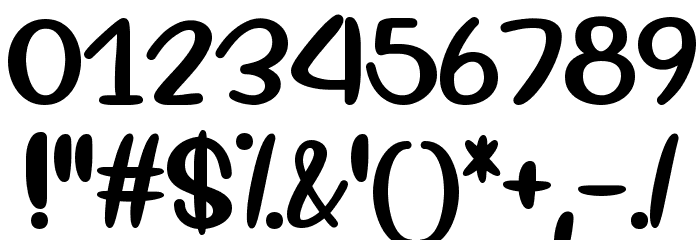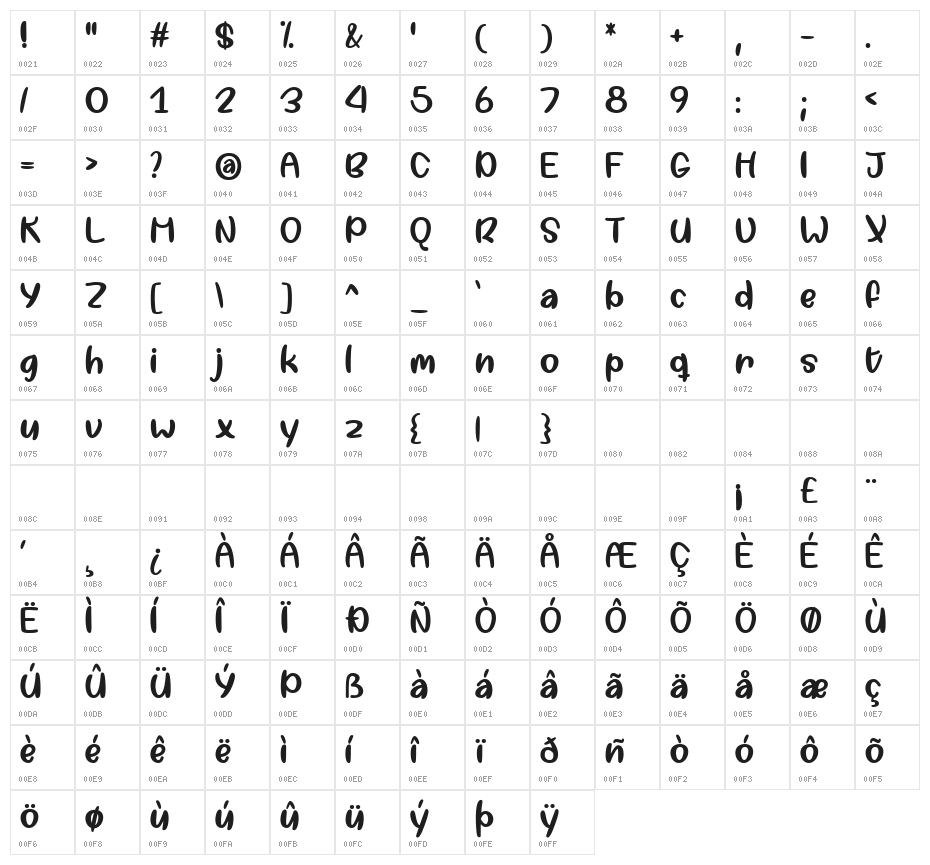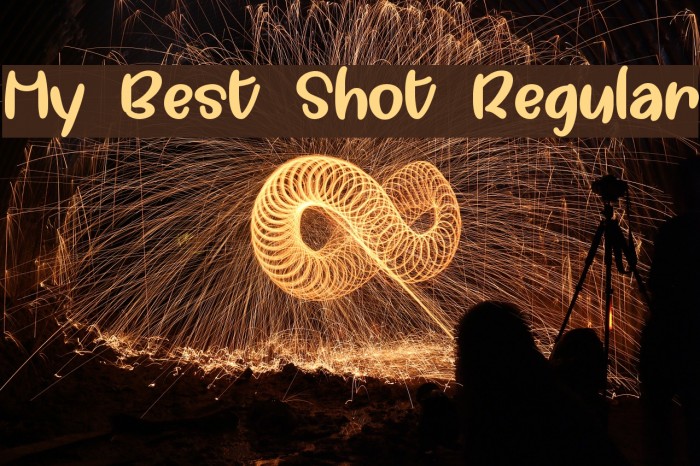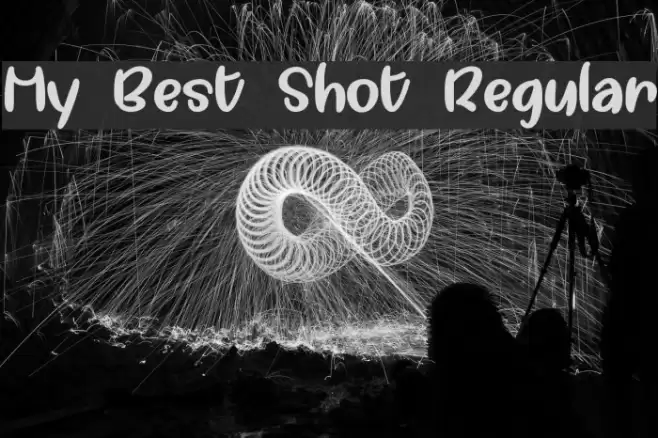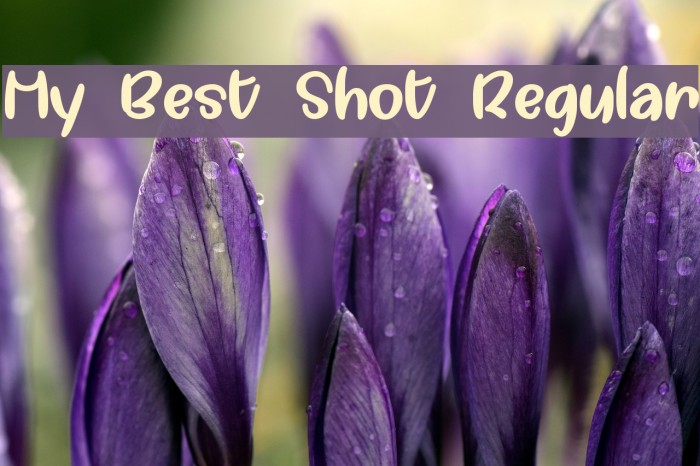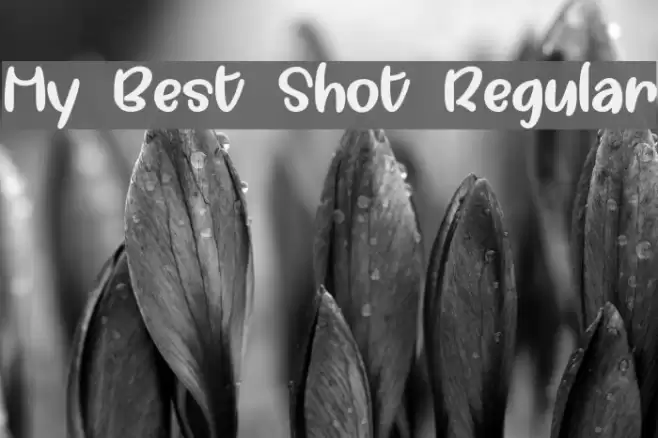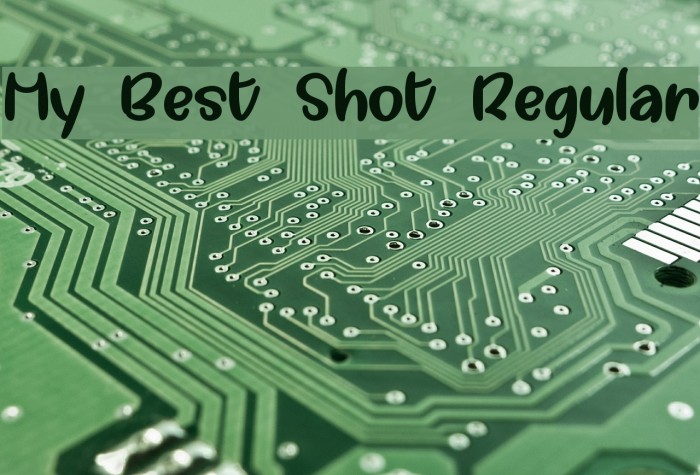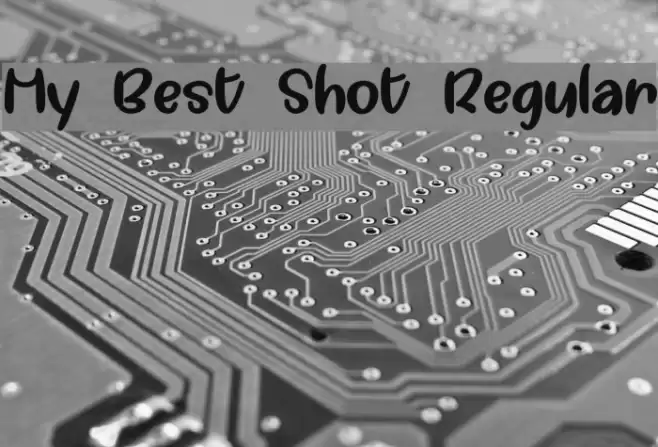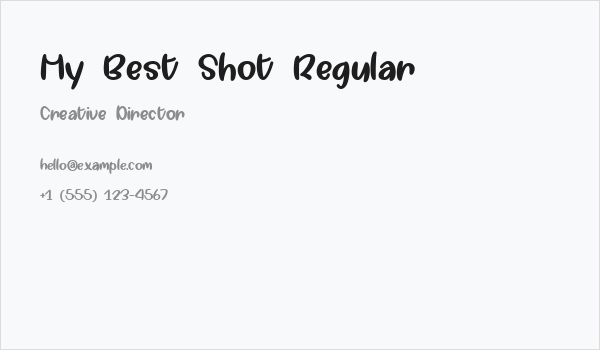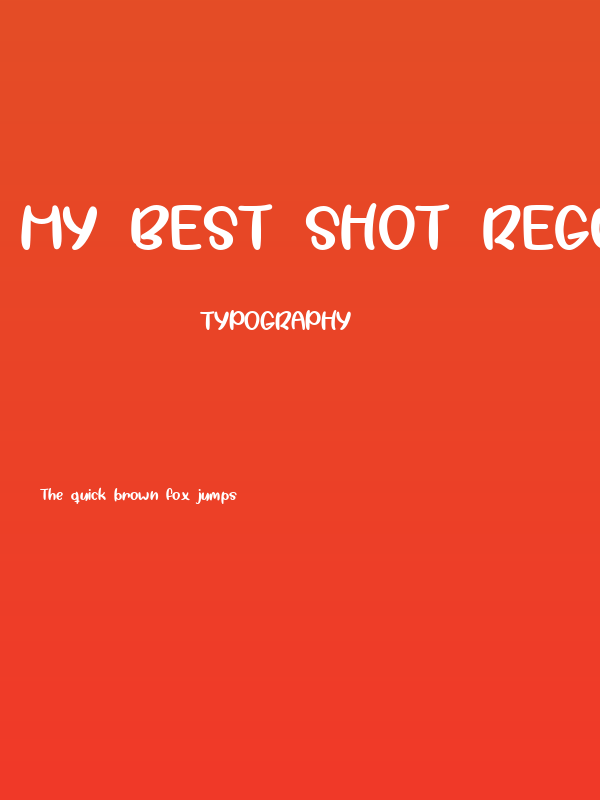
My Best Shot Regular Font
My Best Shot Regular Description
This playful and bold font features a handwritten style with smooth, rounded edges and a consistent stroke width. The characters are slightly condensed, giving a compact appearance while maintaining readability. The uppercase and lowercase letters share a cohesive design, with the lowercase letters exhibiting a friendly and approachable vibe. The numerals and special characters are well-integrated, matching the overall aesthetic. This font's energetic and informal style makes it suitable for creative and casual applications.
| Proposed Projects | Ideal for children's books, greeting cards, playful branding, and social media graphics. |